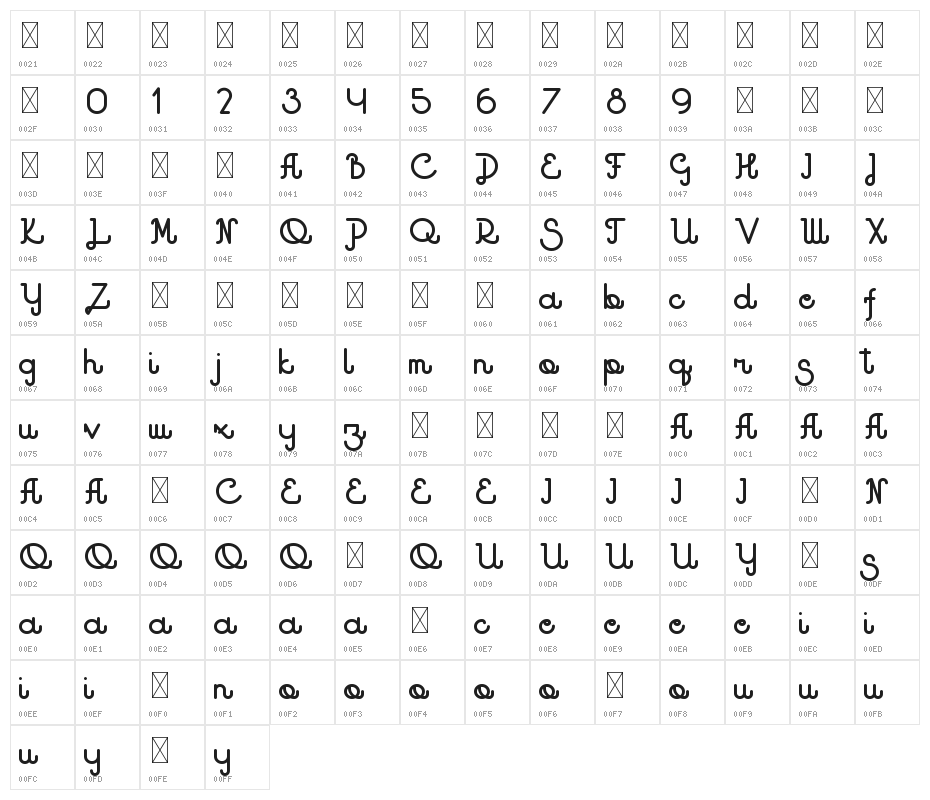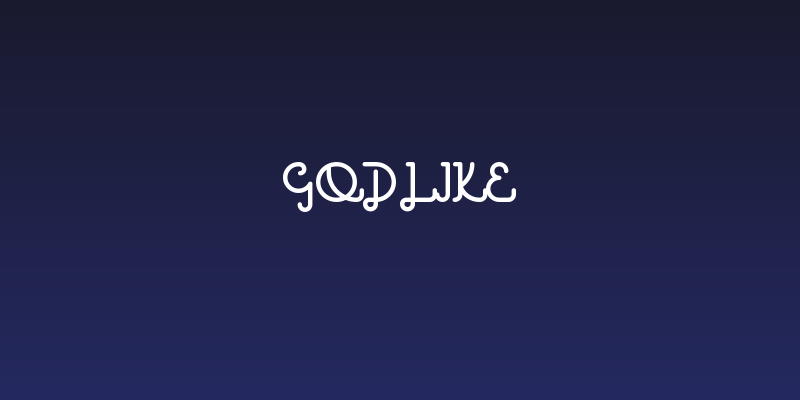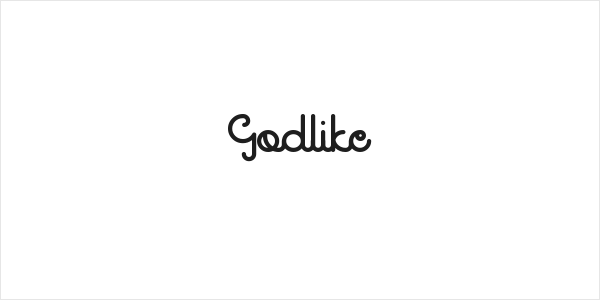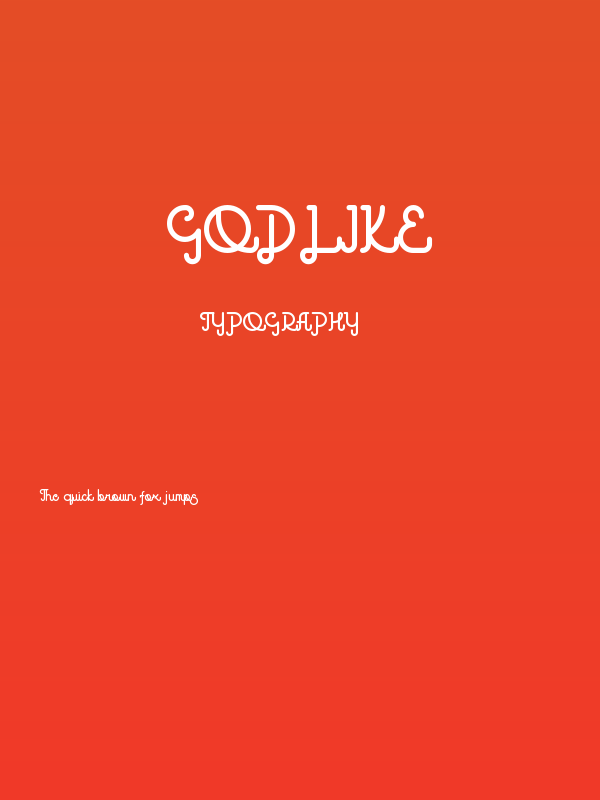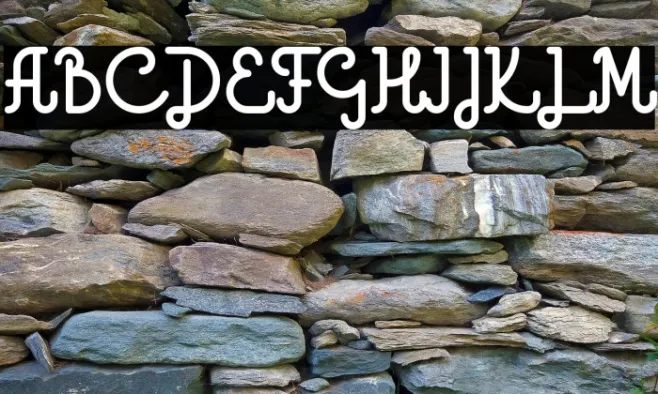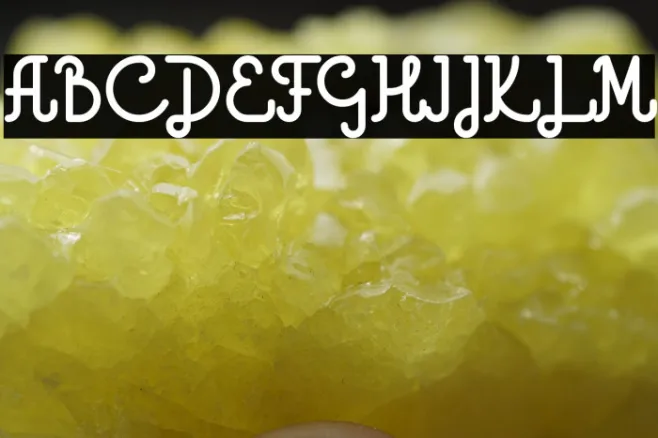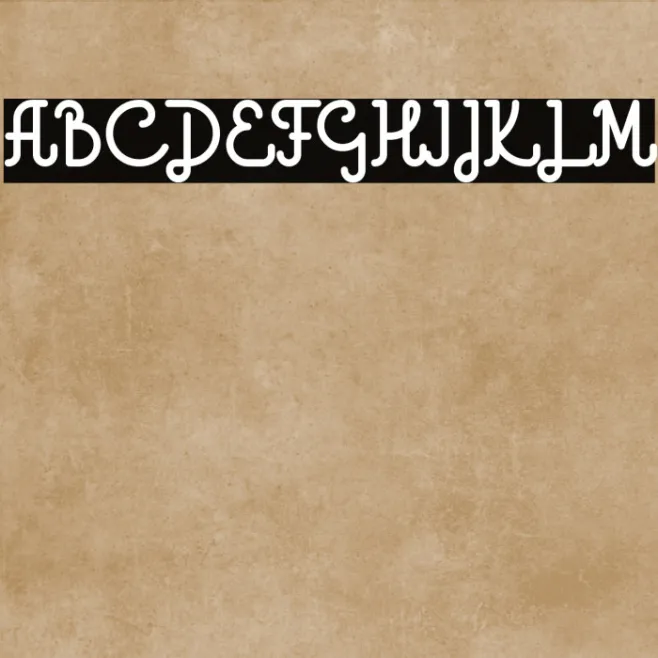
Godlike Font
Godlike Description
This font features a unique and playful design with a script-like appearance. The characters are interconnected, creating a continuous flow that adds a whimsical touch. The uppercase letters maintain a consistent height, while the lowercase letters exhibit a charming looped style. The numbers are bold and rounded, complementing the overall aesthetic. The special characters are creatively designed, fitting seamlessly with the rest of the font. This typeface is perfect for projects that require a fun and engaging look.
| Proposed Projects | Ideal for children's books, playful branding, greeting cards, and creative posters. |